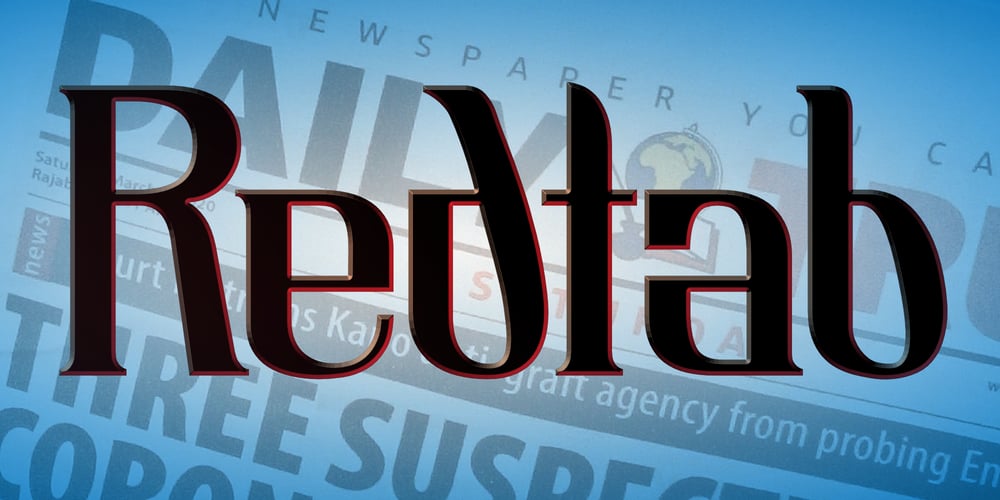
Redtab Font Family was designed by Michael Kovacevich and published by MKGD. Redtab contains 1 styles and family package options. With Redtab I tried to create a typeface that could be used equally well in either in body copy, or in headline form. I like to think that, although it has a more traditional look to it, it still possesses a bit of a creative flourish that sets it apart from similarly designed fonts. Whether used sparingly or in paragraph form, Redtab has the ability to not only read well, but stand out while doing so.